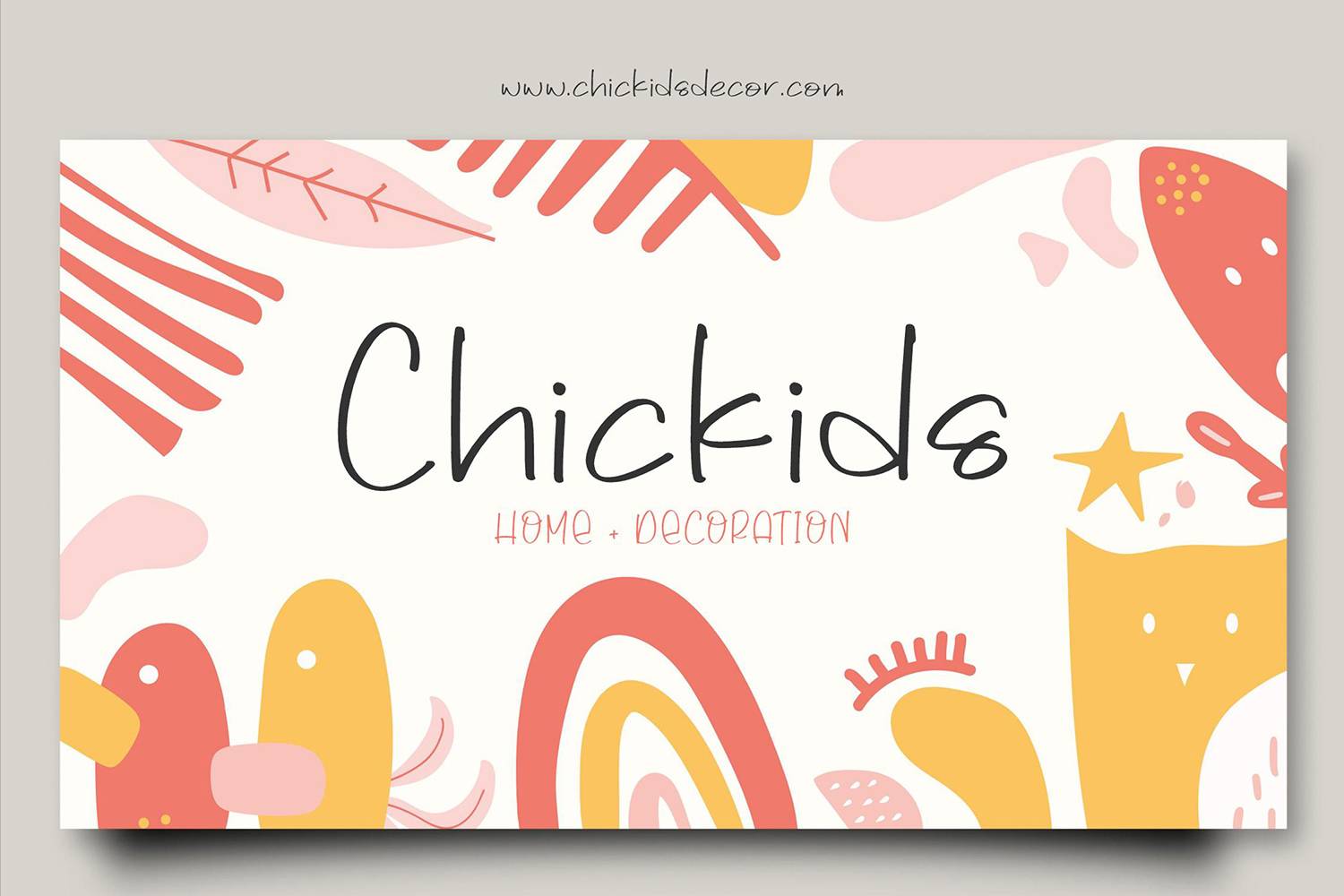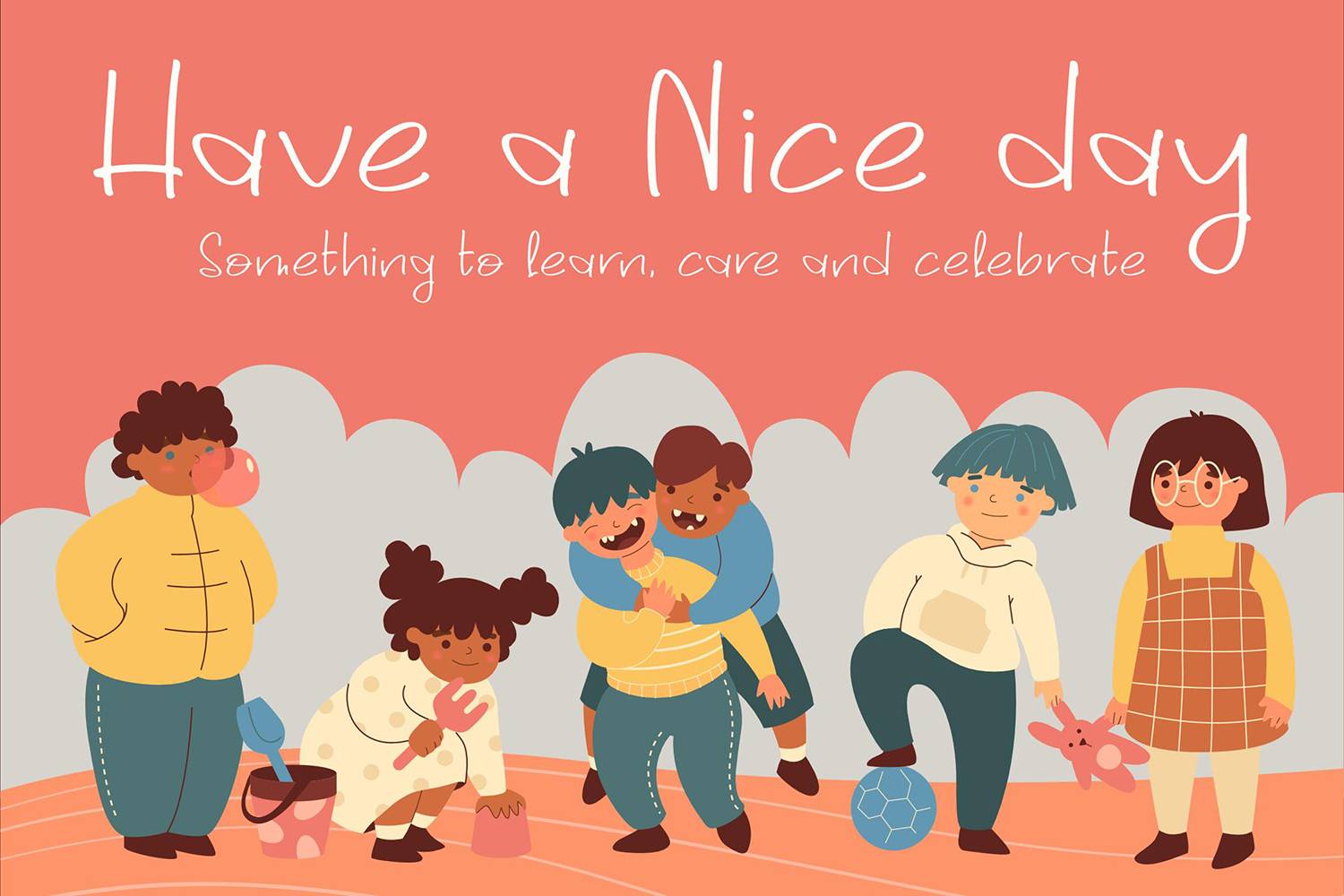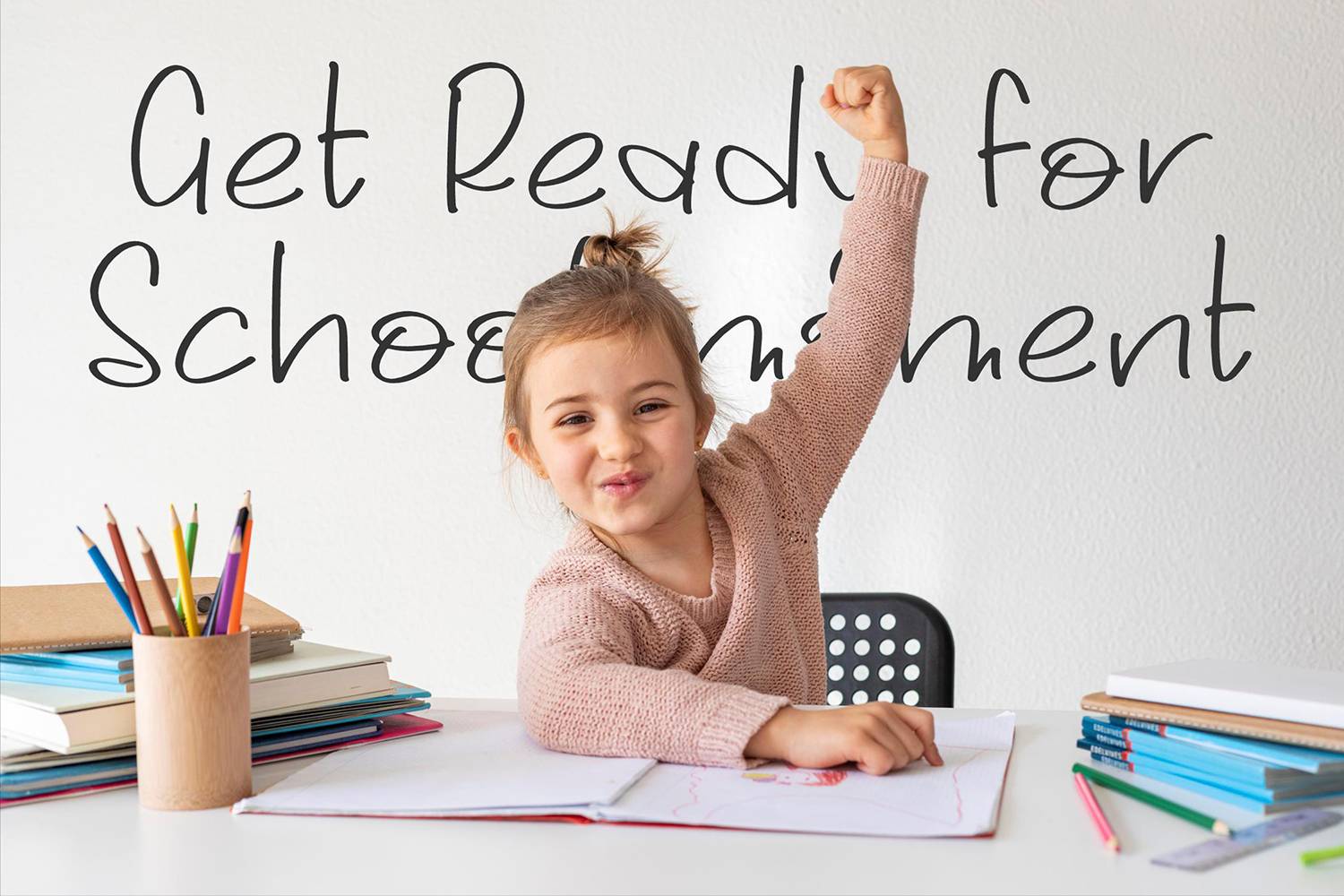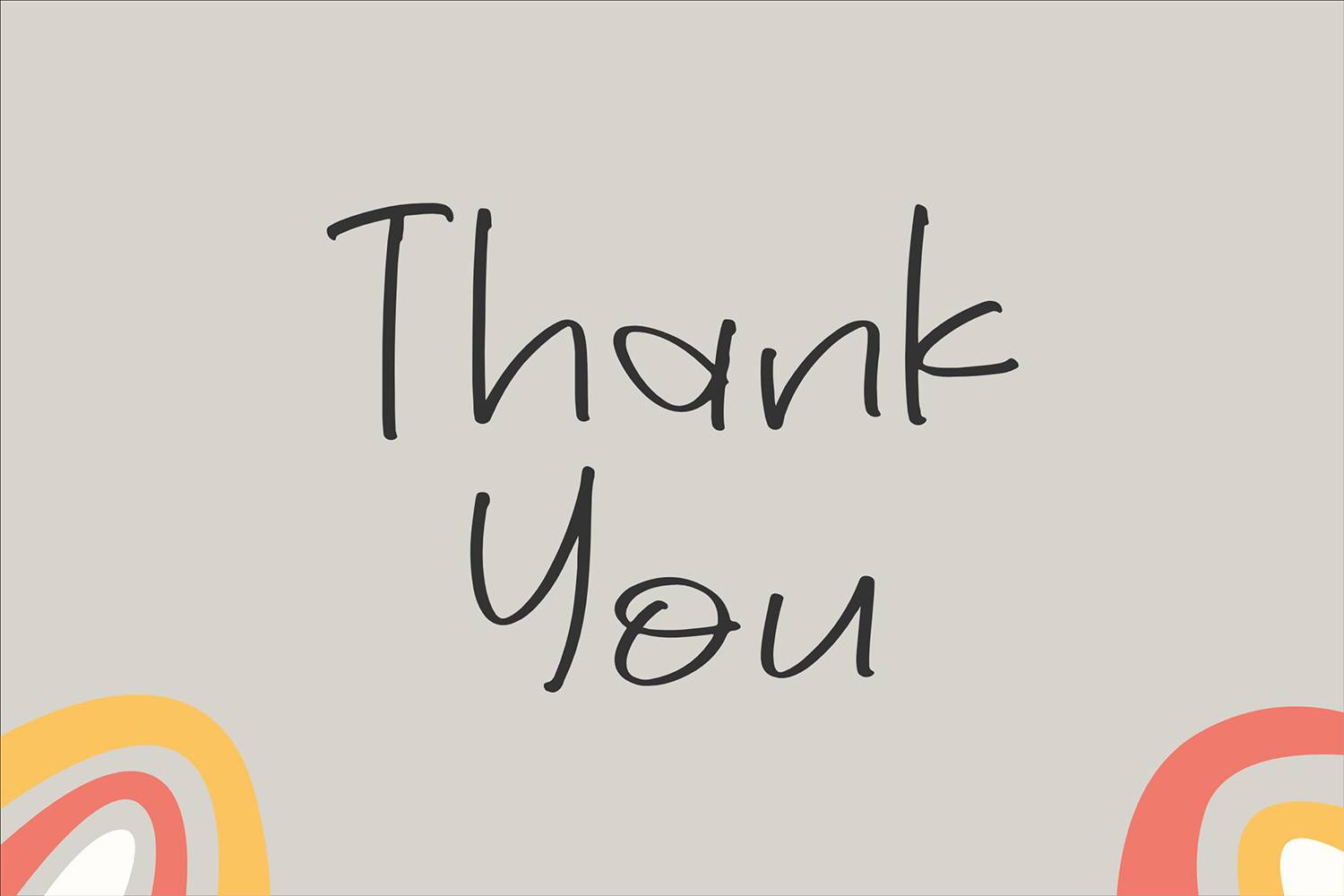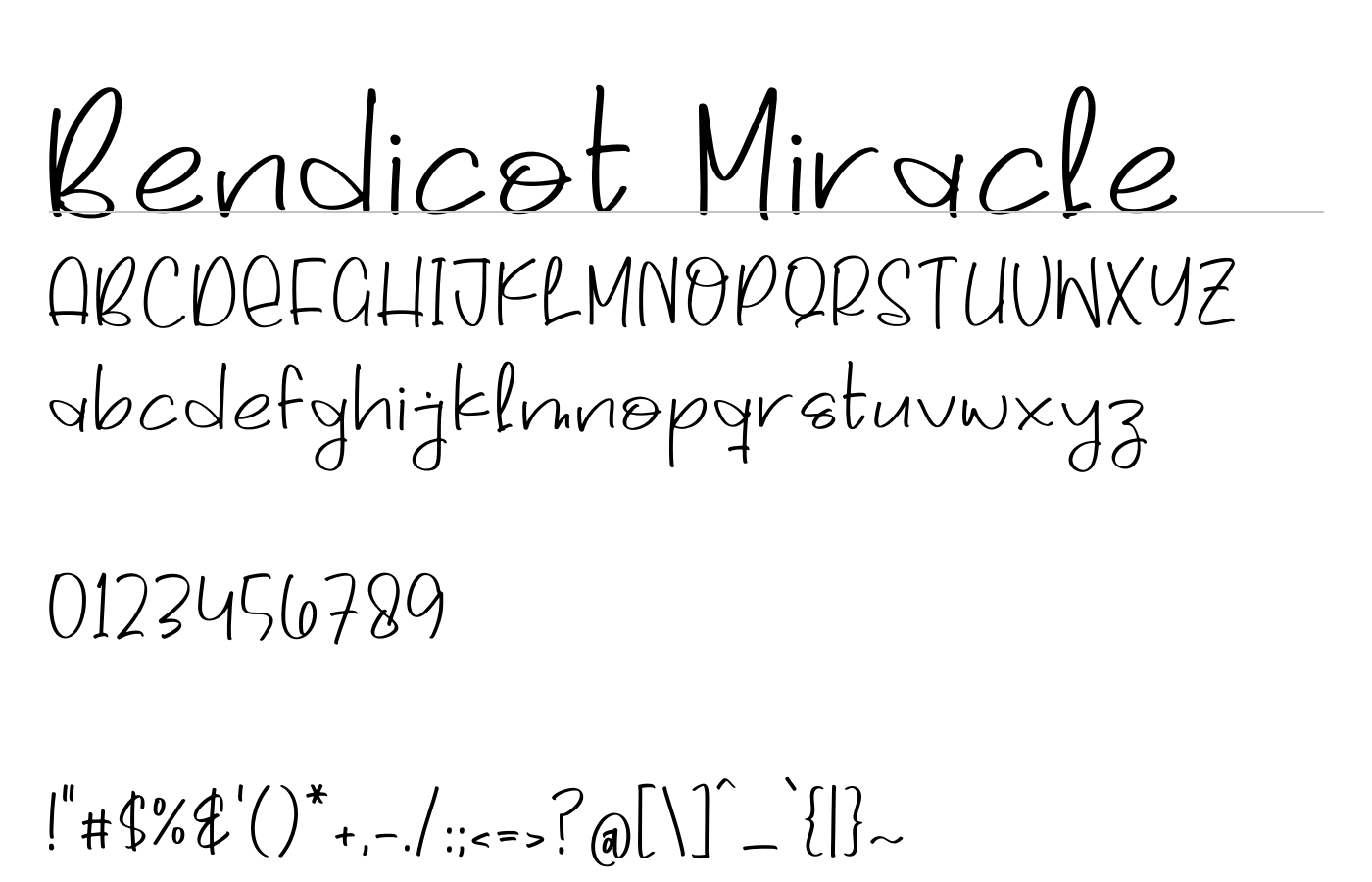
Bendicot Miracle is a playful, handwritten sans-serif font with a light weight and slightly tall x-height, featuring smooth, rounded strokes that convey a friendly and approachable feel. Its irregular, casual letterforms and quirky details make it ideal for creative, informal designs such as greeting cards, children’s books, and fun branding projects. This font works best for headlines and display text, adding a personal, whimsical touch that stands out with charm and warmth.
Bendicot Miracle Font
About Bendicot Miracle Font